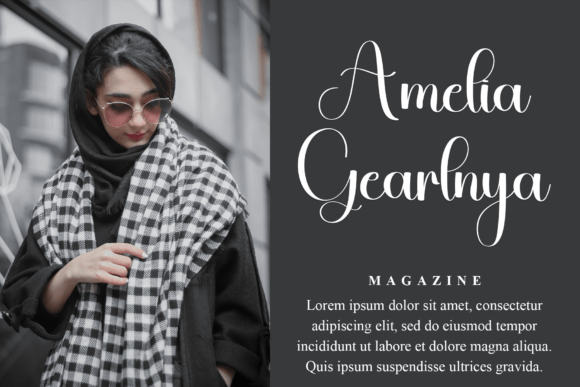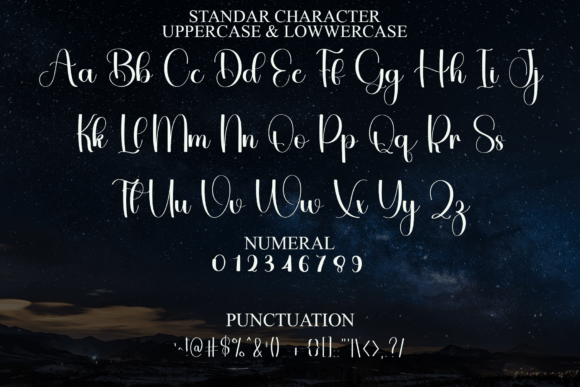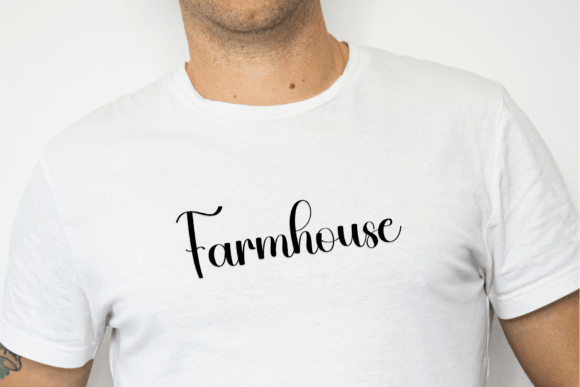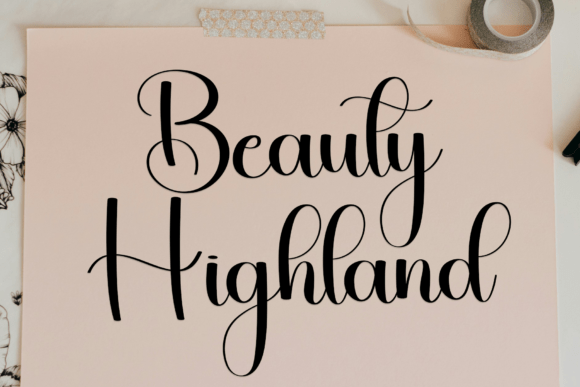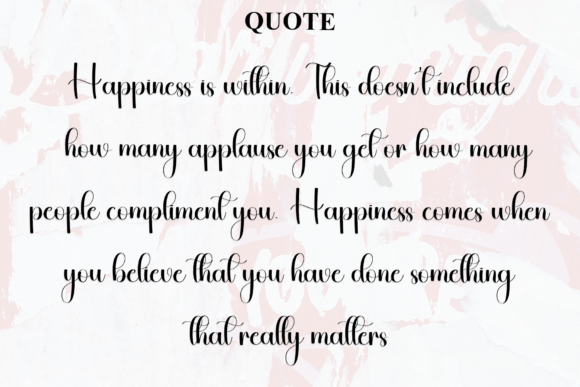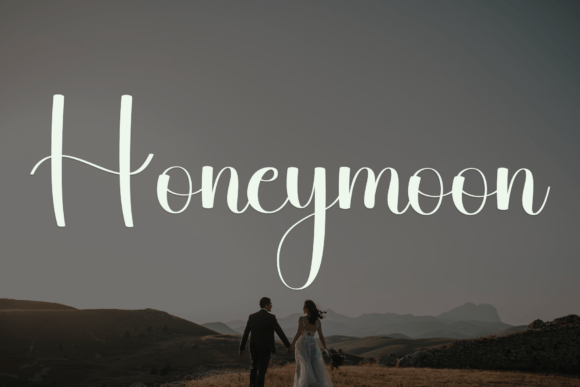
Introducing Autumn Wedding Font: A Timeless Handwritten Delight
As the leaves change colors and the air grows crisp, the charm of autumn inspires creativity in designers and crafters alike. For those seeking a font that embodies the warmth and coziness of the season, look no further than Autumn Wedding Font. This lovely and timeless handwritten font is the perfect choice for creating eye-catching logos, branding, and quotes that will leave a lasting impression.
The Unique Charm of Autumn Wedding Font
What sets Autumn Wedding Font apart is its distinctive and beautiful touch. Every letter is carefully crafted to bring a sense of personality and whimsy to your designs. The font’s handwritten nature gives it a warm, organic feel that is reminiscent of handwritten notes and vintage typography. Whether you’re designing a logo, creating a brand identity, or crafting a quote, Autumn Wedding Font brings a level of sophistication and elegance that is hard to match.
Autumn Wedding Font is a versatile tool that can be used in a variety of creative projects. Designers will appreciate the font’s flexibility and expressiveness, which makes it ideal for:
- Logo design: Create a memorable brand identity with a custom logo that showcases your unique style.
- Branding: Use Autumn Wedding Font to develop a consistent visual brand that resonates with your audience.
- Quotes and typography: Add a touch of elegance to your quotes, posters, and social media graphics.
Crafters, too, will find Autumn Wedding Font to be a valuable resource for their creative pursuits. Whether you’re making invitations, crafting handmade cards, or creating personalized gifts, this font will add a special touch to your projects.
Why Choose Autumn Wedding Font?
With so many fonts available, why choose Autumn Wedding Font? Here are just a few reasons:
- Unique and beautiful touch: Every letter has a distinctive character that sets it apart from more generic fonts.
- Handwritten elegance: The font’s handwritten nature gives it a warm, organic feel that is perfect for creating a personal connection with your audience.
- Versatility: Autumn Wedding Font can be used in a wide range of creative projects, from logos and branding to quotes and typography.
Tips for Using Autumn Wedding Font
To get the most out of Autumn Wedding Font, here are a few tips to keep in mind:
- Experiment with colors: The font looks great in a variety of colors, from rich autumnal hues to bold and bright shades.
- Play with textures: Add depth and interest to your designs by combining the font with different textures and patterns.
- Mix and match: Don’t be afraid to combine Autumn Wedding Font with other fonts and design elements to create a unique look.
Autumn Wedding Font is a timeless and lovely handwritten font that is perfect for designers and crafters looking to add a touch of elegance and sophistication to their creative projects. With its unique and beautiful touch, versatility, and ease of use, this font is sure to become a favorite in your design toolkit. So why wait? Download Autumn Wedding Font today and start creating eye-catching logos, branding, and quotes that will leave a lasting impression.